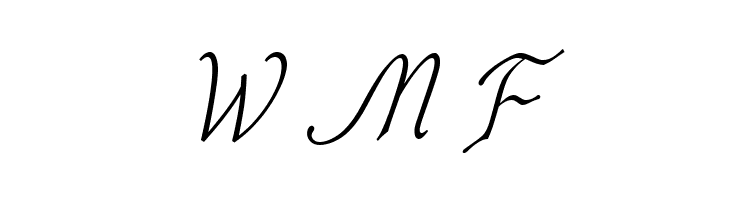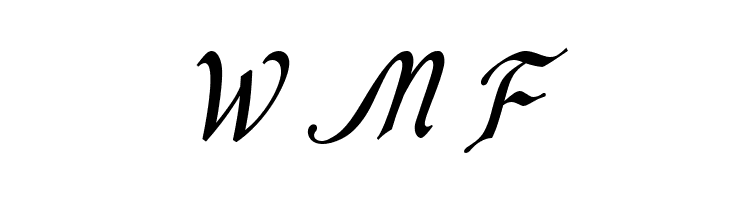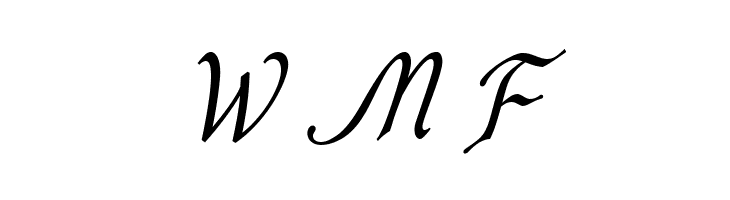
BarBender Bold Font
Font by Mickey Rossi - www.subflux.com
A bold, geometric sans-serif font with a modern, industrial style.
Cella Font
A bold, hand-drawn font with a casual, organic feel.
Roundel Font
A bold, circular geometric font with high contrast and modern style.
TT Octosquares Trl Db It Font
Font by TypeType Foundry
A modern, geometric font with angular, italicized characters.
Arando Script PERSONAL USE Bold Font
A bold, elegant script font with flowing, interconnected letters.
Arando Script PERSONAL USE Regular Font
An elegant, flowing script font with a handwritten style.
Tom Violence Font
pOPdOG fONTS - Dimitris Kolyris - popdog_fonts.tripod.com/
A bold, distressed font with a grunge, textured appearance.
TT Octosquares Trl Exp Bd Font
Font by TypeType Foundry
A bold, geometric font with a square-like, futuristic design.
TT Octosquares Trl Cmd Rg Font
Font by TypeType Foundry
A geometric, modern font with angular, squared-off letterforms.
TT Octosquares Trl Exp Bd It Font
Font by TypeType Foundry
A bold, geometric font with angular edges and a modern slant.
TT Octosquares Trl Cnd Bd Font
Font by TypeType Foundry
A bold, geometric font with a modern, condensed style.
TT Octosquares Trl Cmd Blc It Font
Font by TypeType Foundry
A bold, geometric font with an angular, modern design and italic slant.
Arando Script PERSONAL USE Bold Italic Font
A bold, italic script font with elegant, flowing cursive letters.
TT Octosquares Trl Exp Rg Font
Font by TypeType Foundry
A geometric, modern font with octagonal shapes and clean lines.
TT Octosquares Trl Lt It Font
Font by TypeType Foundry
A geometric, angular typeface with a modern, italicized style.
TT Octosquares Trl Exp XBd It Font
Font by TypeType Foundry
A bold, geometric font with a modern, tech-inspired style and italicized slant.
TT Octosquares Trl Rg Font
Font by TypeType Foundry
A geometric, octagonal typeface with a modern, technical look.
TT Octosquares Trl XBd It Font
Font by TypeType Foundry
A bold, angular, and slightly italicized font with a modern geometric style.
TT Octosquares Trl XBd Font
Font by TypeType Foundry
A bold, geometric font with a modern, angular design.
TT Octosquares Trl Cmd XLt Font